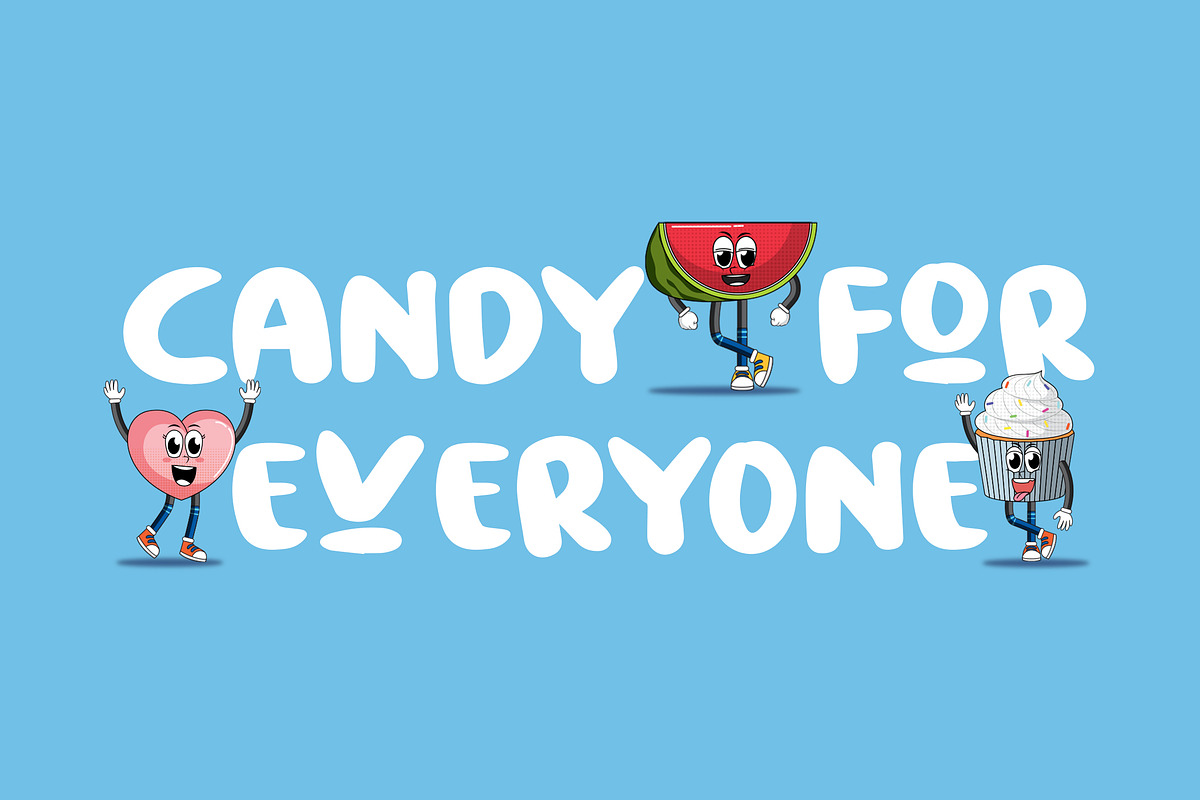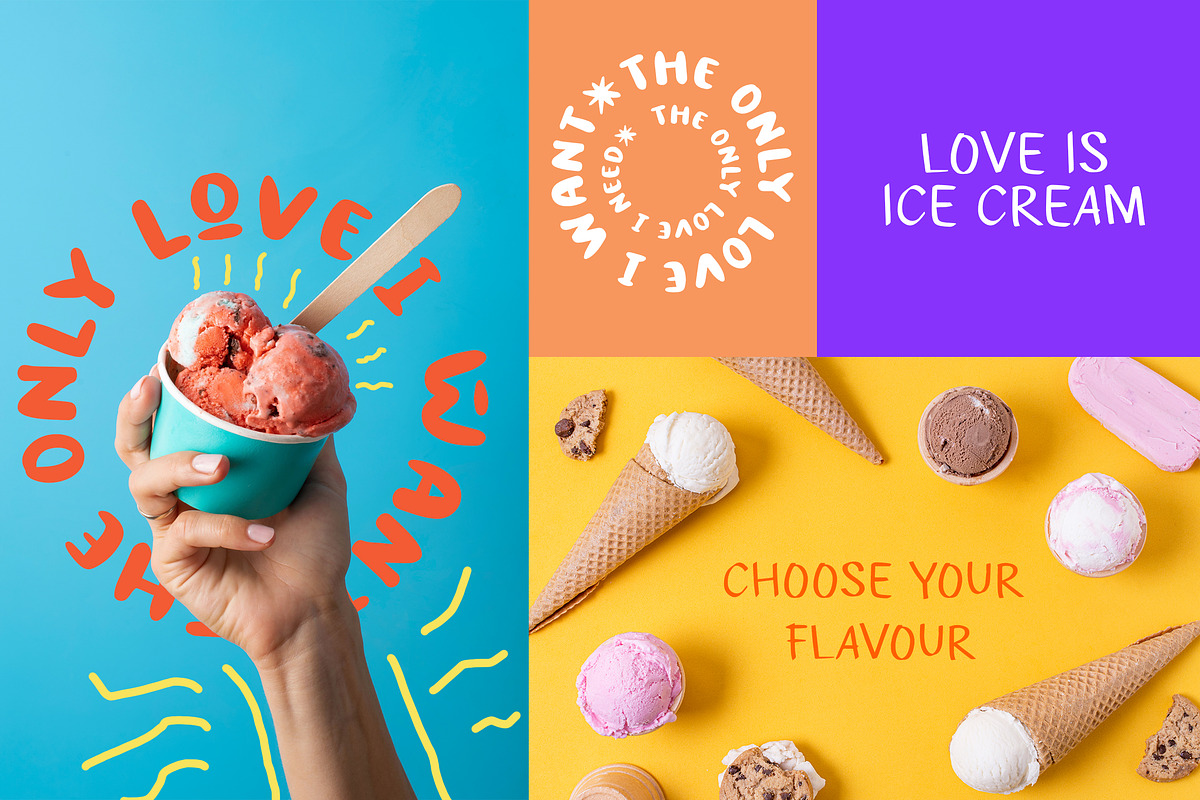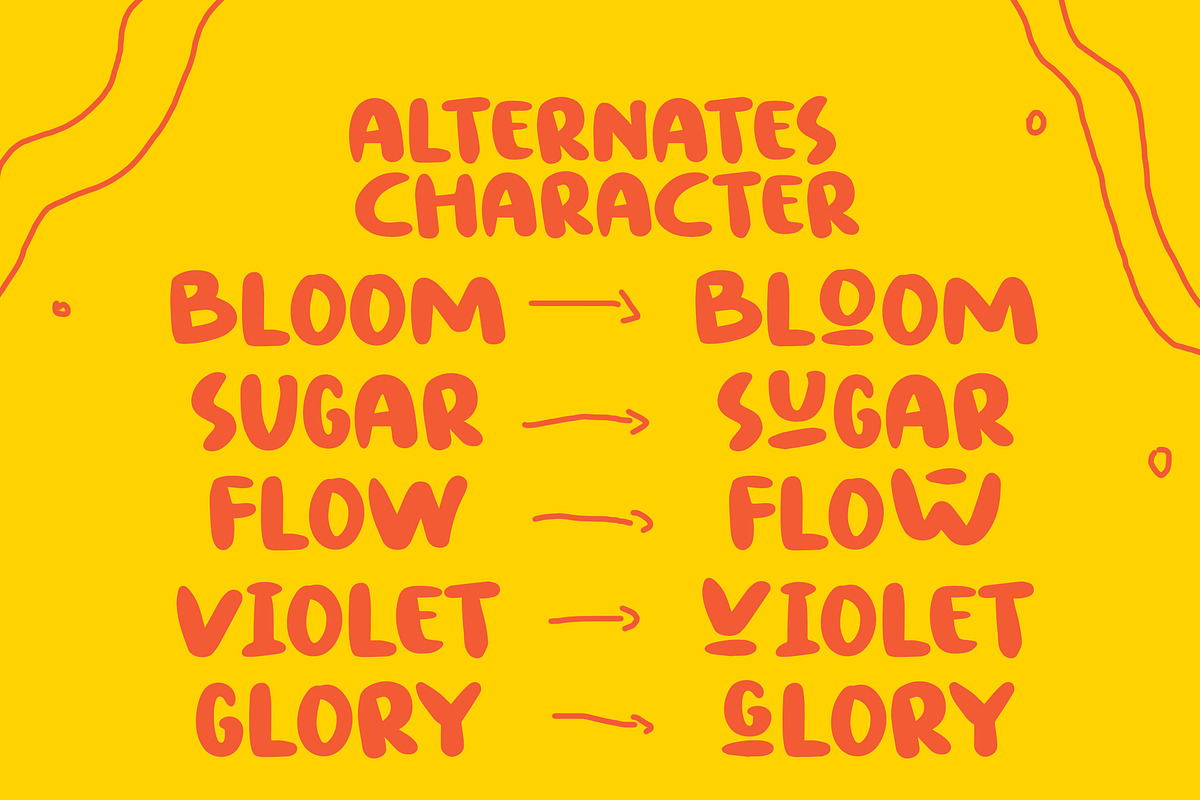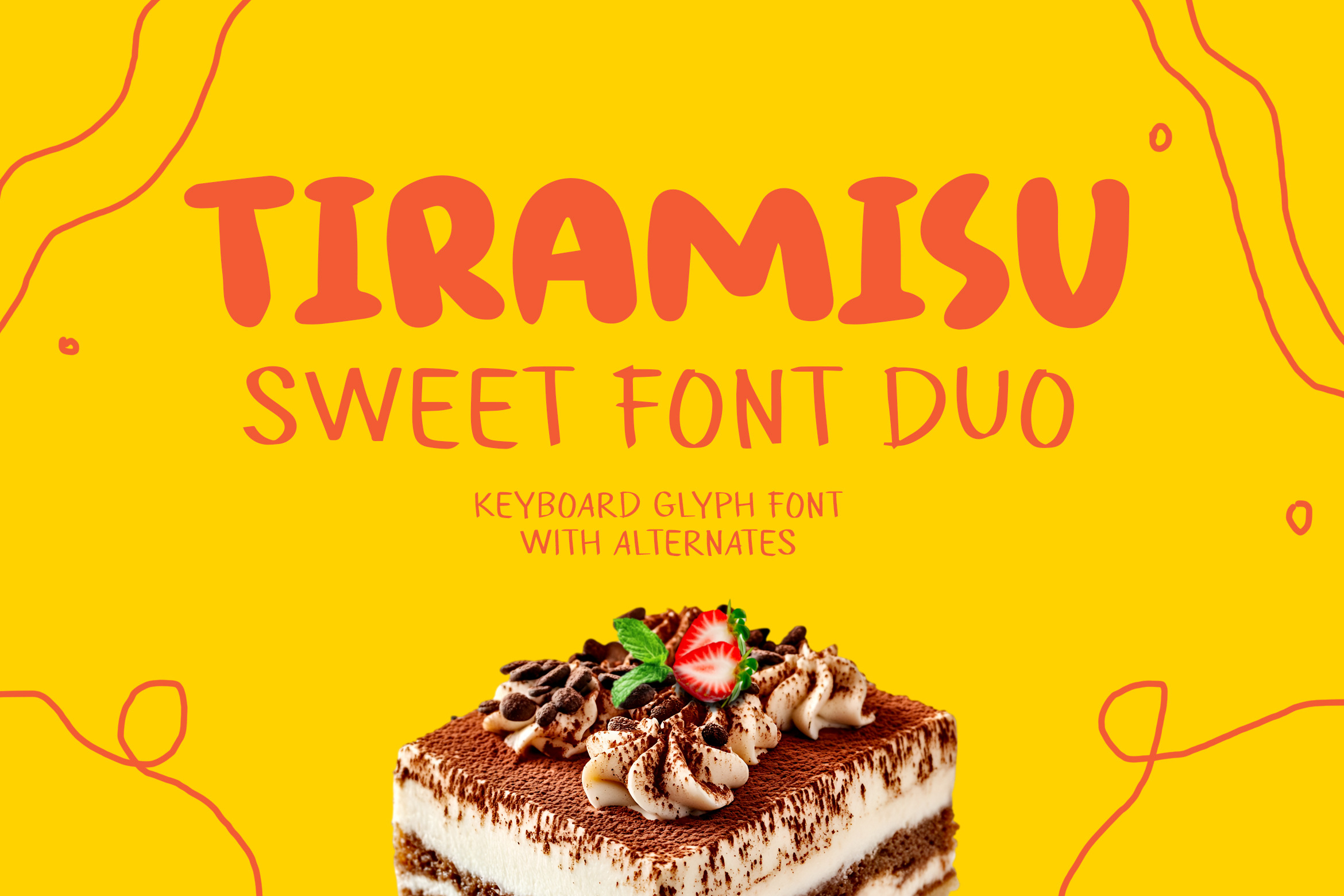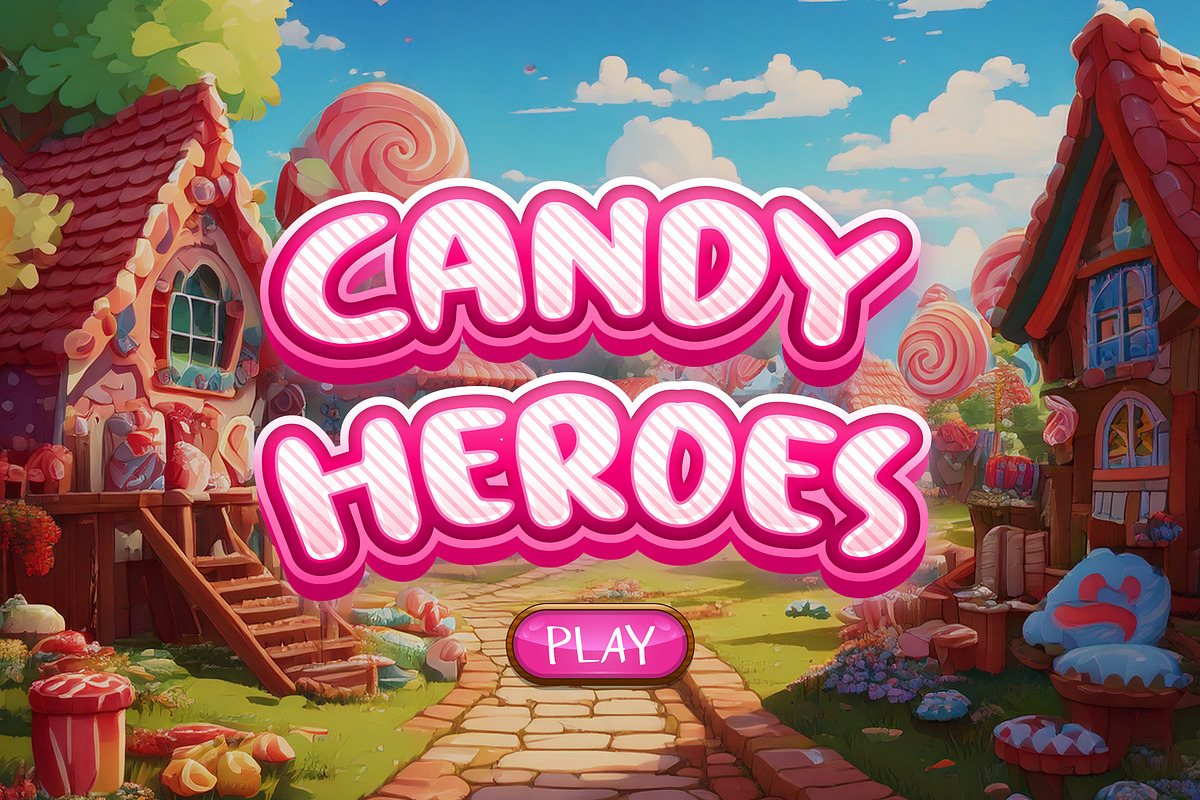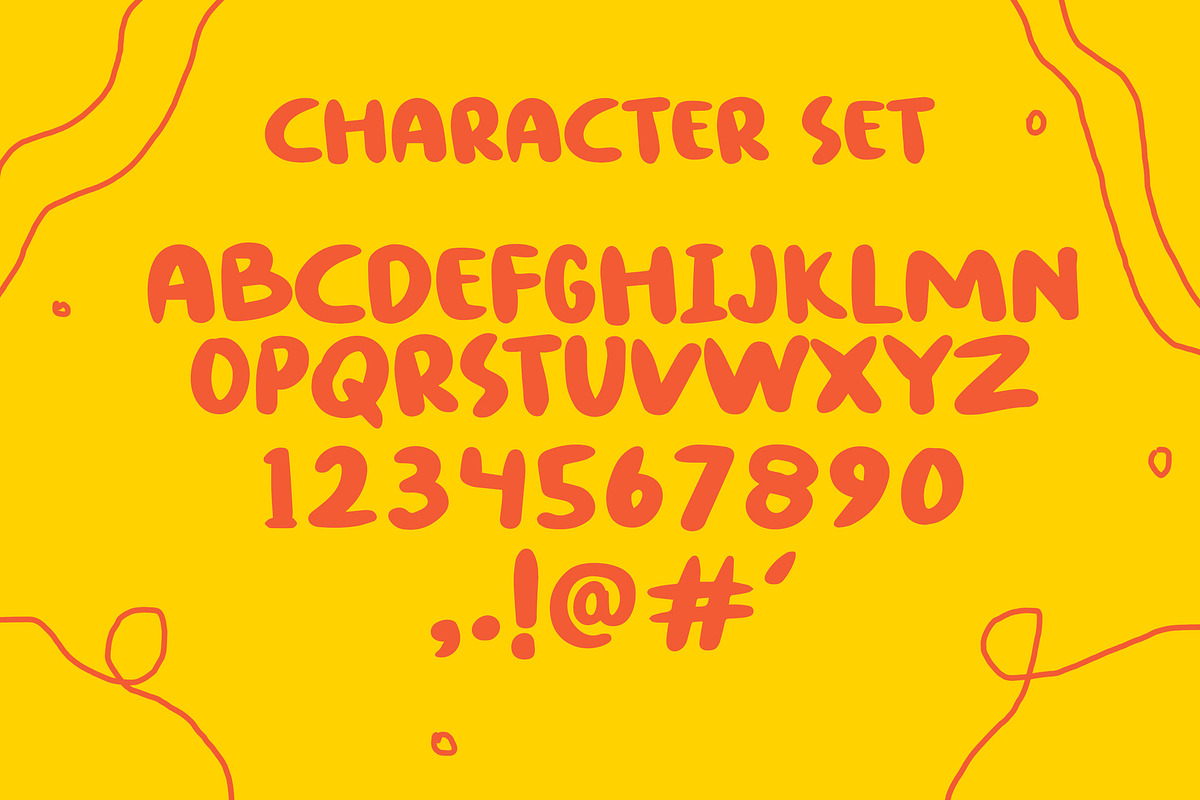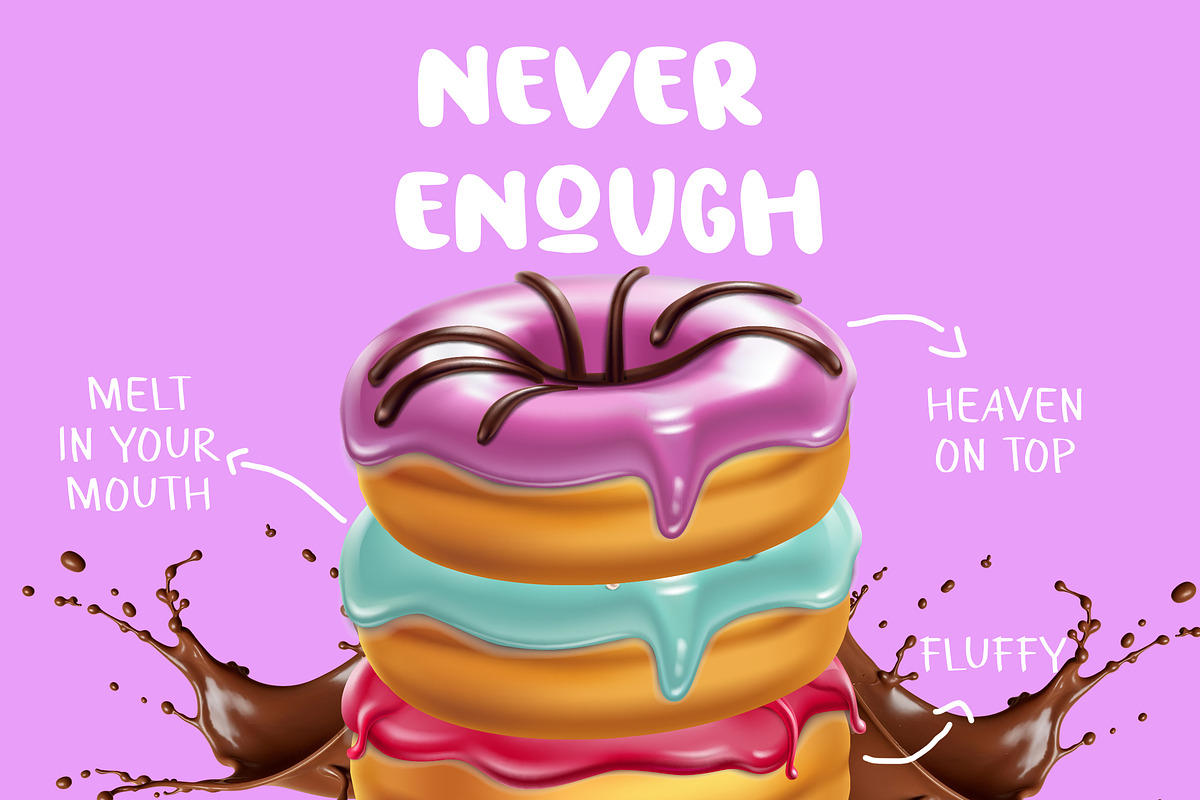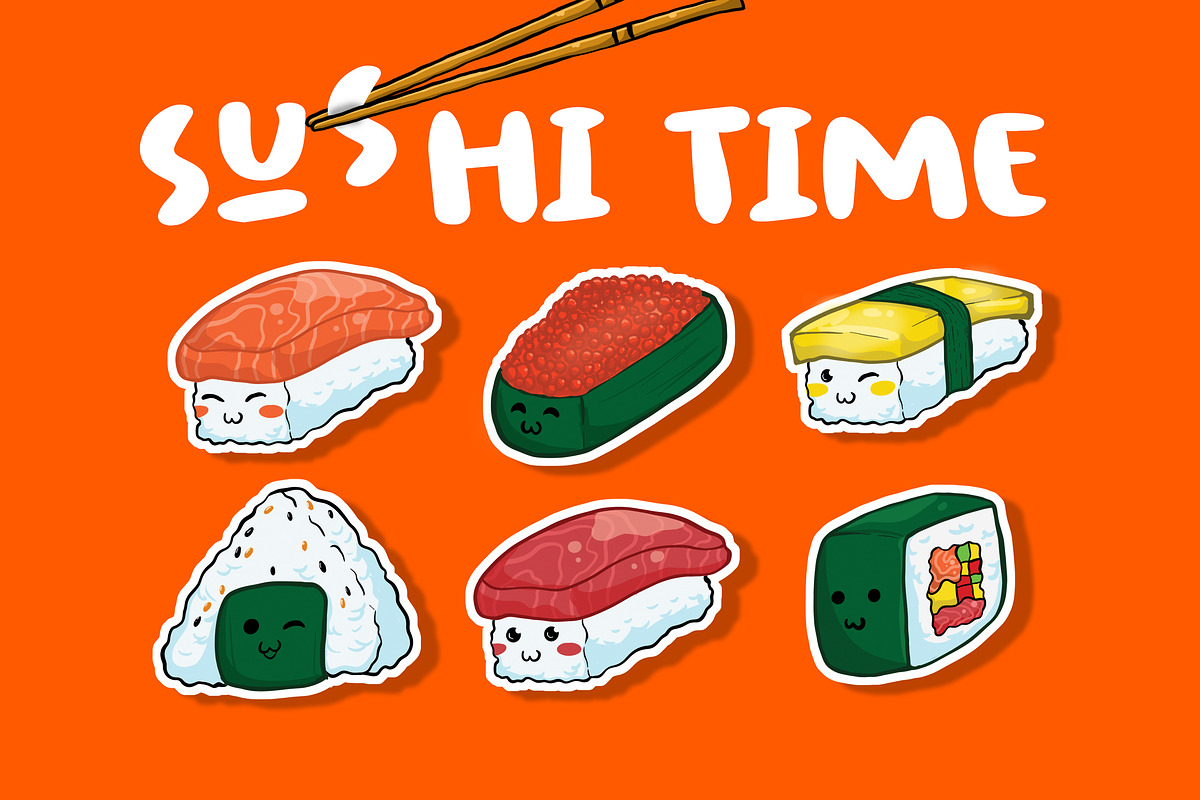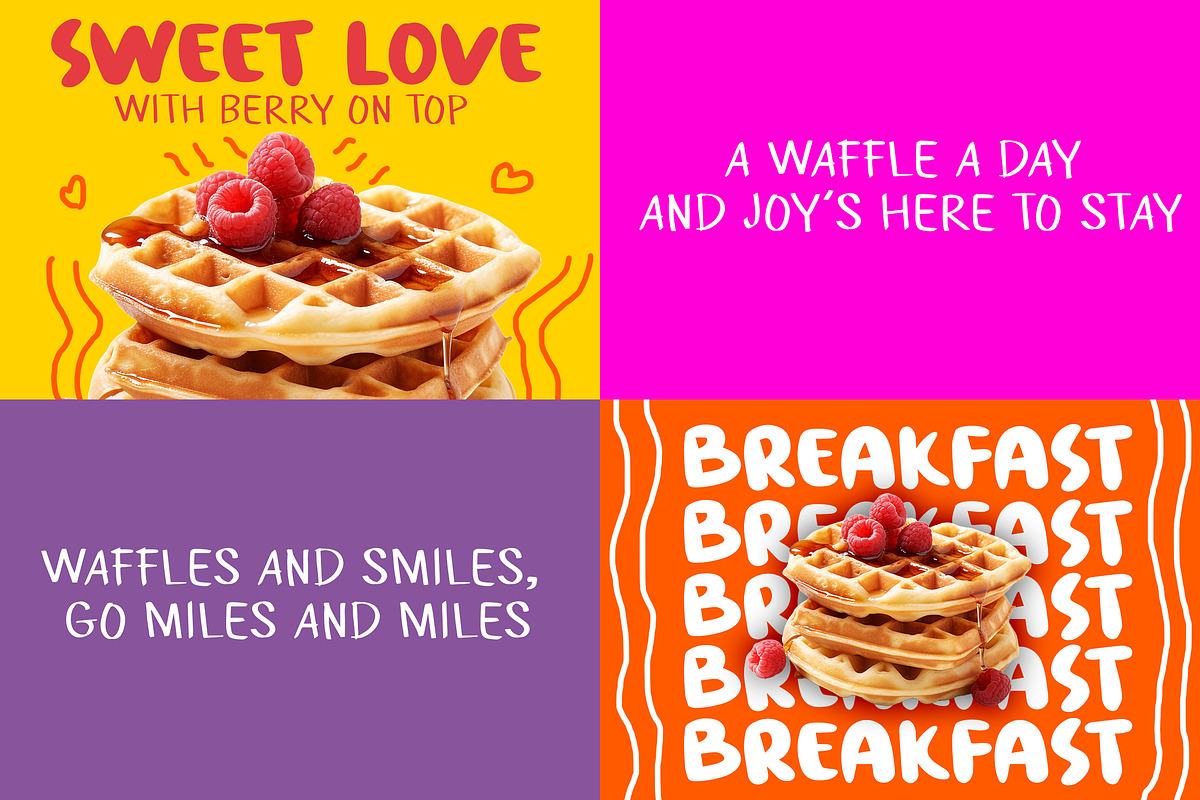
Tiramisu - Sweet Font Duo
Tiramisu – Sweet Font Duo is like a warm, loving hug in the form of typography. With its natural brush strokes and tender flow.
The two fonts in this duo come together in perfect harmony, like best friends who complement each other’s strengths. One font brings a soft, graceful elegance, while the other adds a playful, handwritten charm.
When you use Tiramisu, you’ll feel the love and care that went into every curve and line—just like a heartfelt embrace that wraps you in comfort. Perfect for creating designs that radiate warmth, love, and genuine connection, this font duo is your go-to for adding that sweet, personal touch to any project.